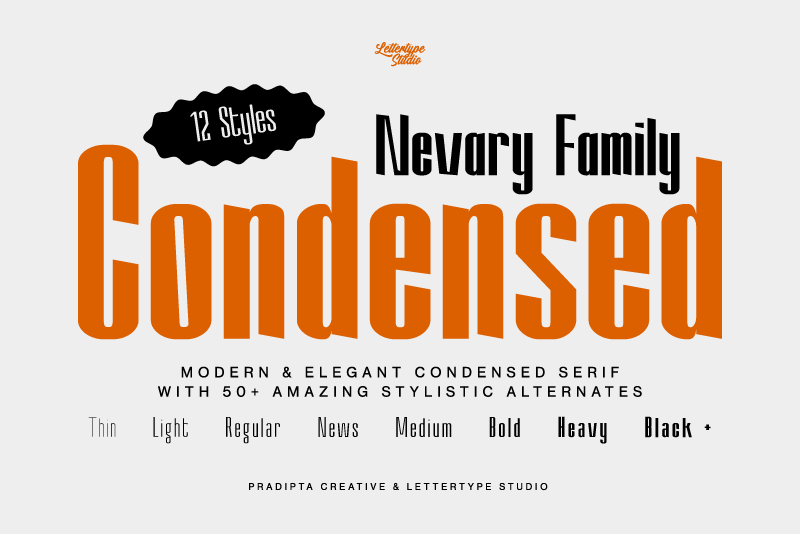
Nevary Font
About Nevary
Nevavry is an elegant, modern, unique, and stunning condensed sans-serif font perfect for elevating your design with a professional look. These fonts feature clean lines and condensed proportions, offering a stylish, bold, contemporary aesthetic perfect for headlines.
Nevary font family offering multiple styles and multilingual support, elevates your digital and print creations with a unique modern and vintage flair. This font works in large and small sizes and includes 12 styles from thin to extra black. They feature 50+ unique alternates, multilingual support, and various weights.